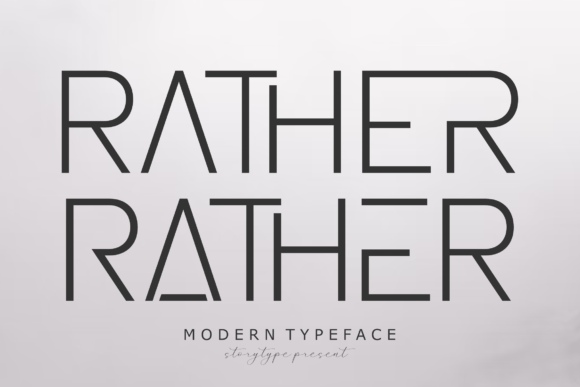
Behold Rather, a font of exquisite grace and meticulous design, crafted by the Storytype Studio. This sans serif typeface transcends the ordinary, inviting you to a realm of visual enchantment. Rather is not just a font; it's an experience, a symphony of letterforms that evoke elegance, sophistication, and an irresistible charm that sets your designs apart.
With Rather, you hold the key to unlocking a world of creative possibilities. Its clean lines and crisp edges lend themselves effortlessly to logos, book covers, magazine layouts, and fashion branding. Imagine your words adorned in Rather's refined strokes, captivating your audience with a timeless allure that speaks volumes without uttering a single word.
Dive into the depths of Rather's versatility and discover a font that adapts seamlessly to your every whim. It embraces the modern and classic with equal finesse, making it the perfect companion for contemporary designs and timeless masterpieces alike. Whether you seek a touch of understated elegance or an explosion of visual drama, Rather rises to the occasion, elevating your creations to new heights of sophistication.
Step into the realm of memes and let Rather become your weapon of choice. Its playful spirit and infectious energy will transform your memes into viral sensations, spreading laughter and joy across the digital landscape. Embrace Rather's inherent meme-ability and watch your creations soar to new heights of hilarity, leaving a trail of smiles in their wake.